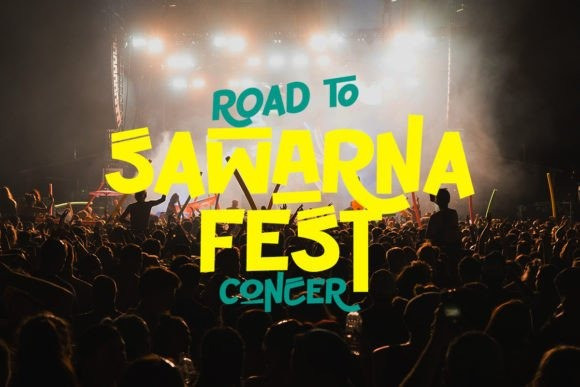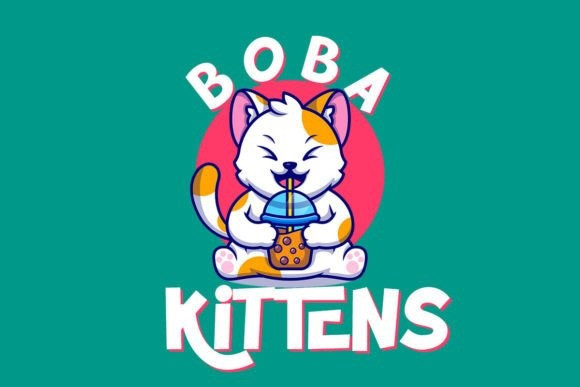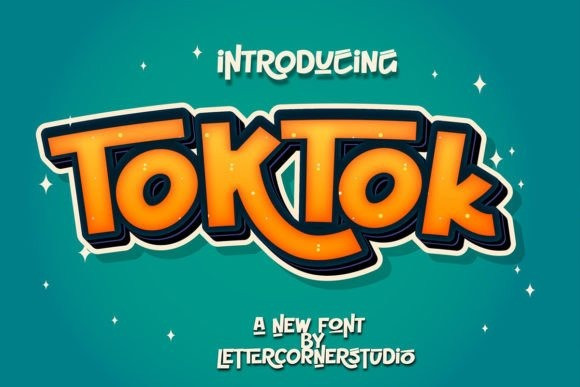
Toktok Font
Toktok Display Font is a comic display font. This modern and good-looking typeface is suitable for fashion, branding, catalog, menus, fashion, t-shirt printing, and other designs.